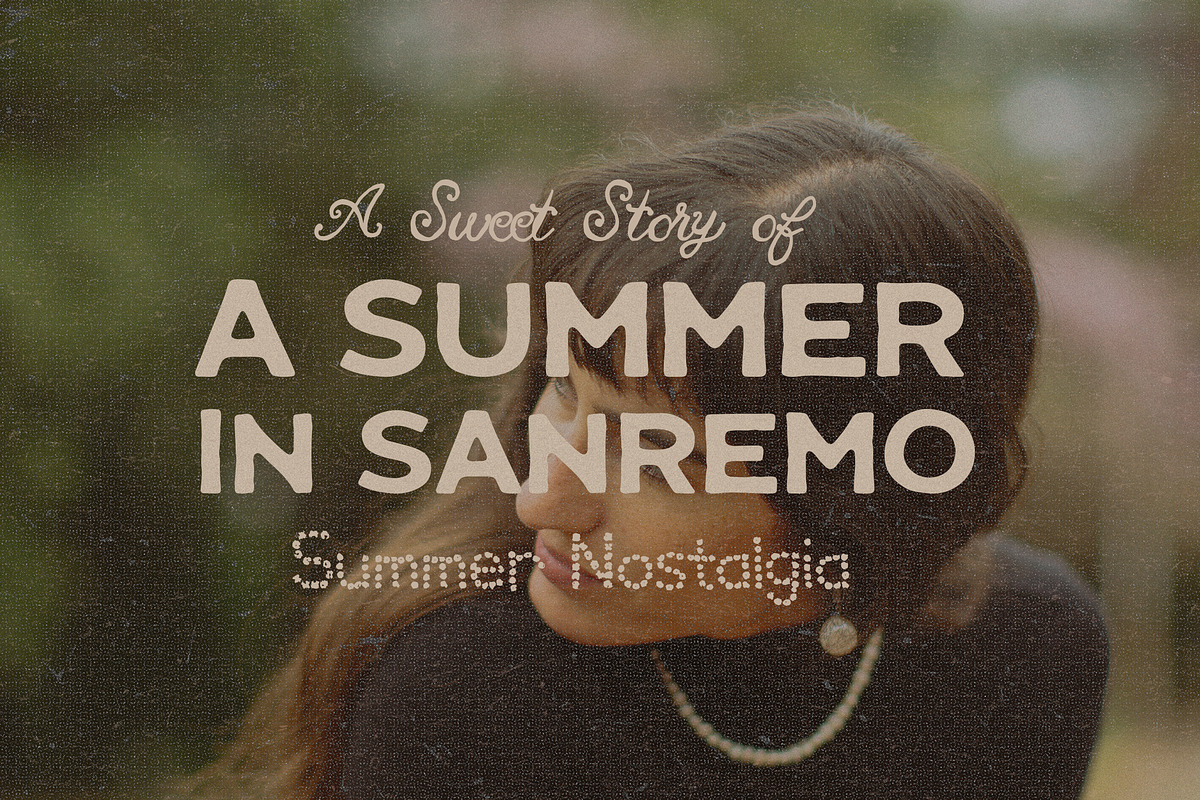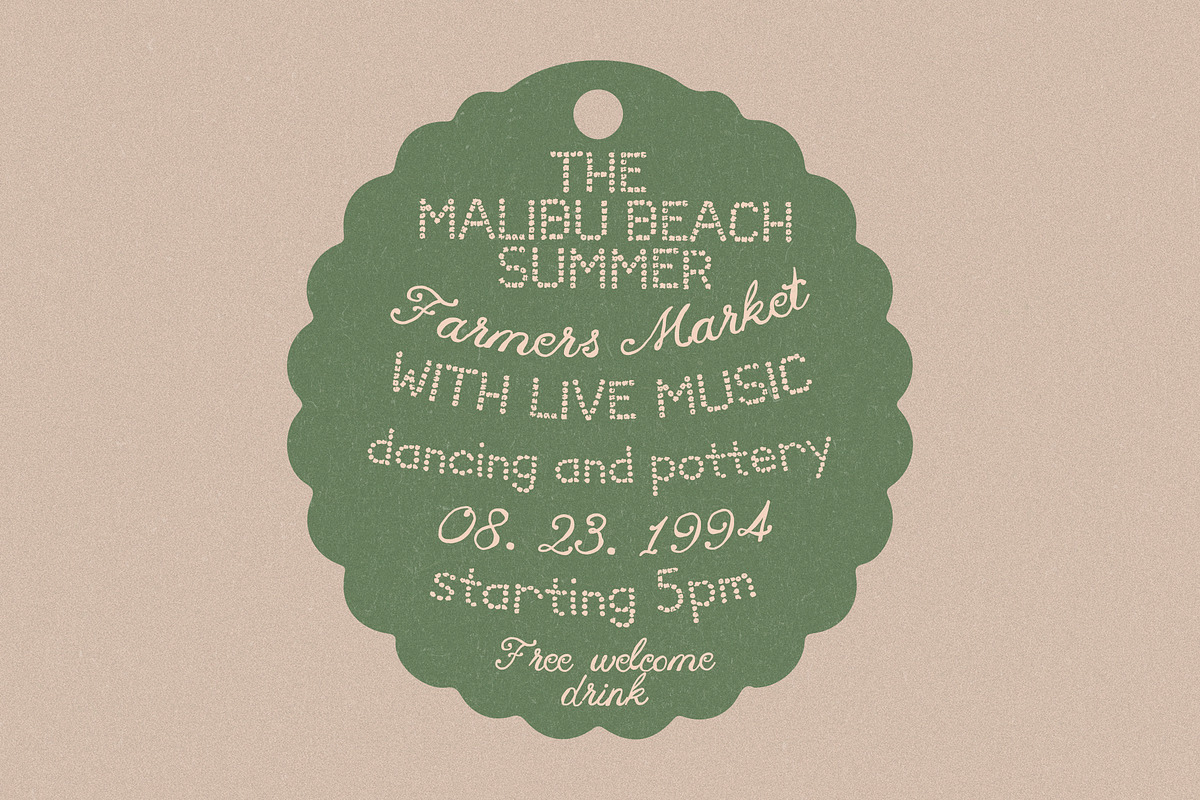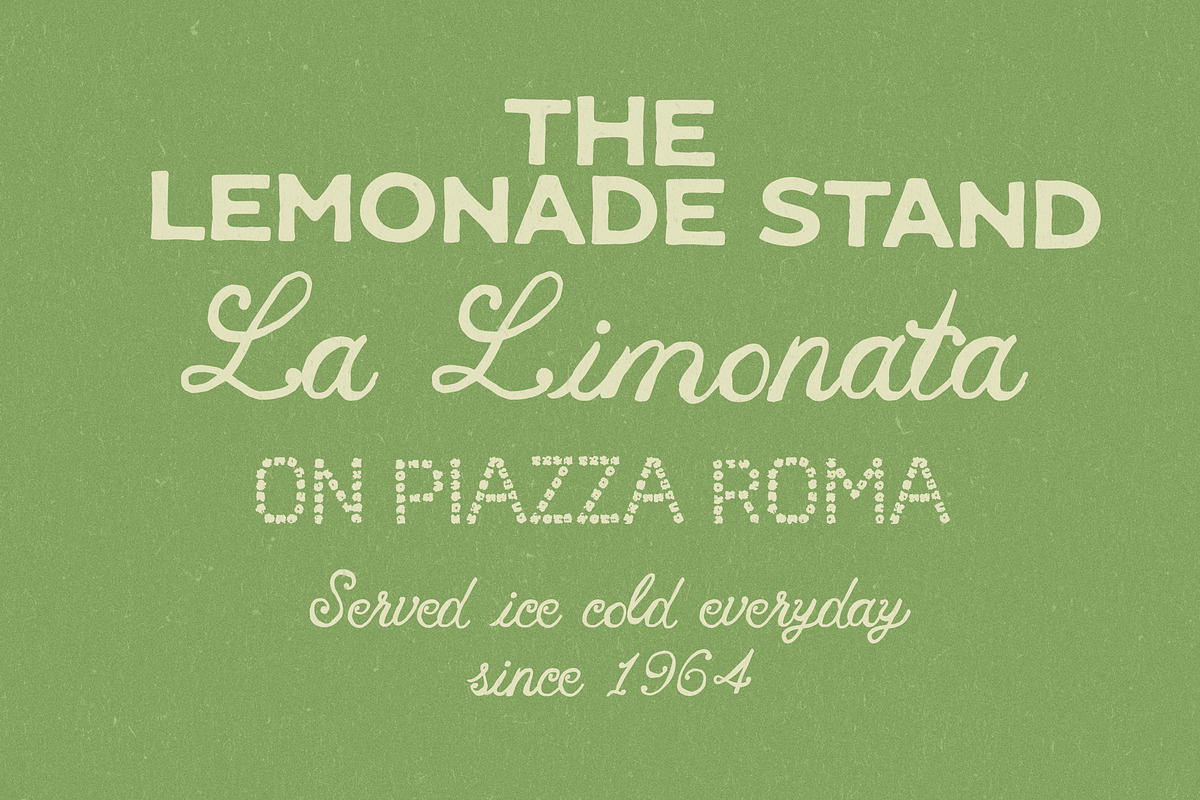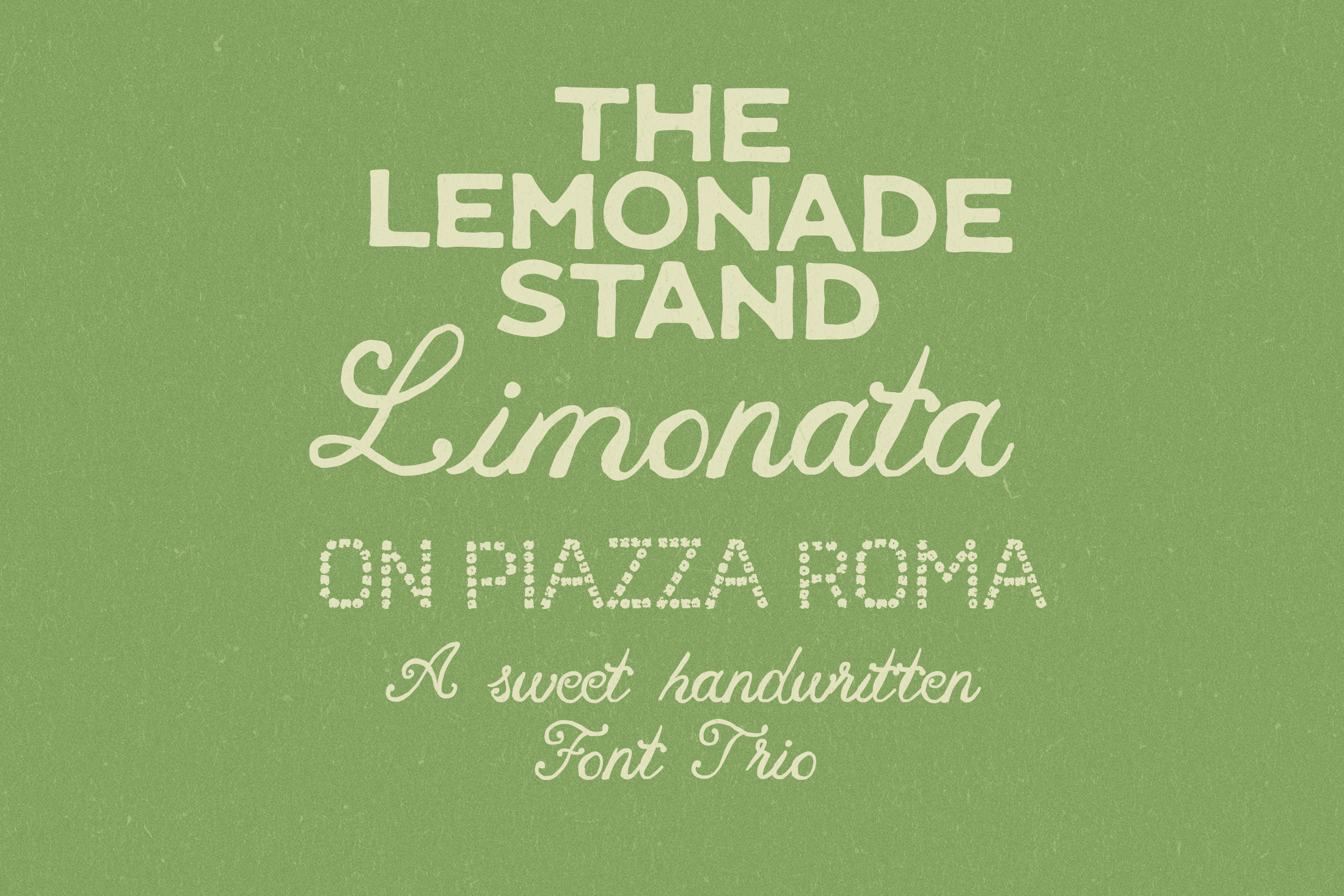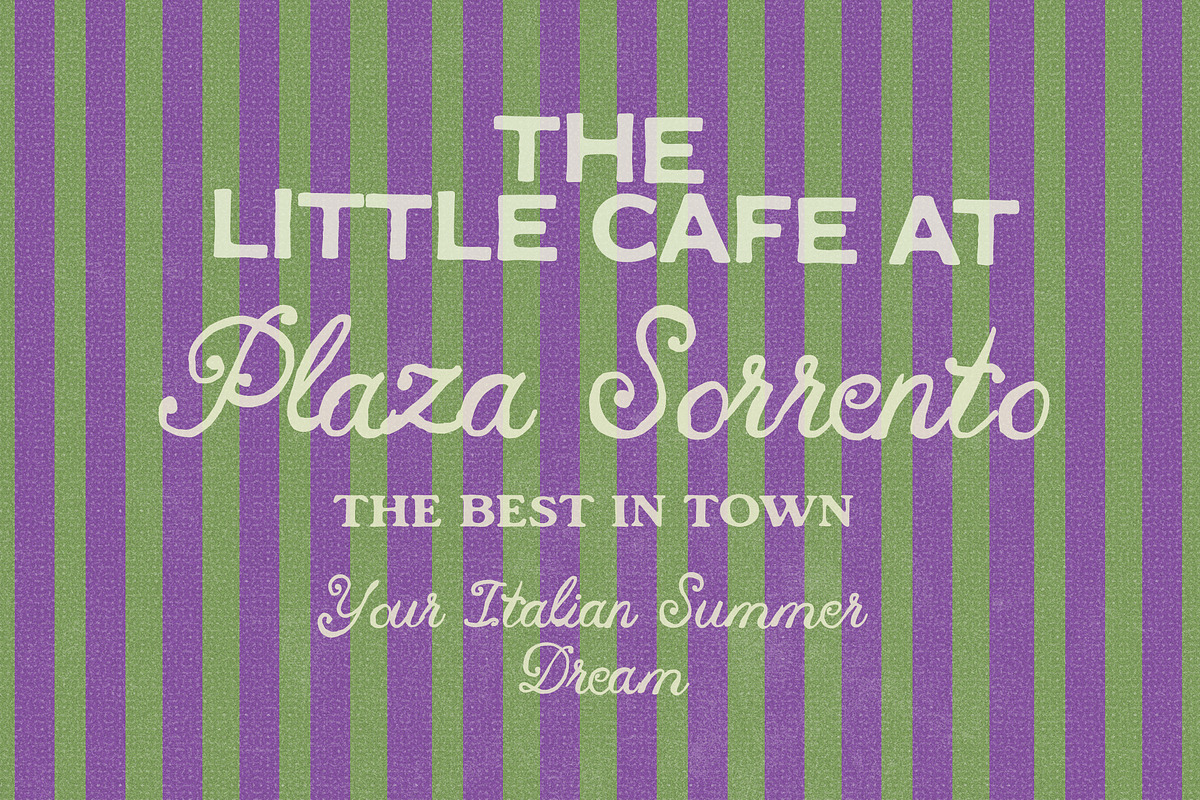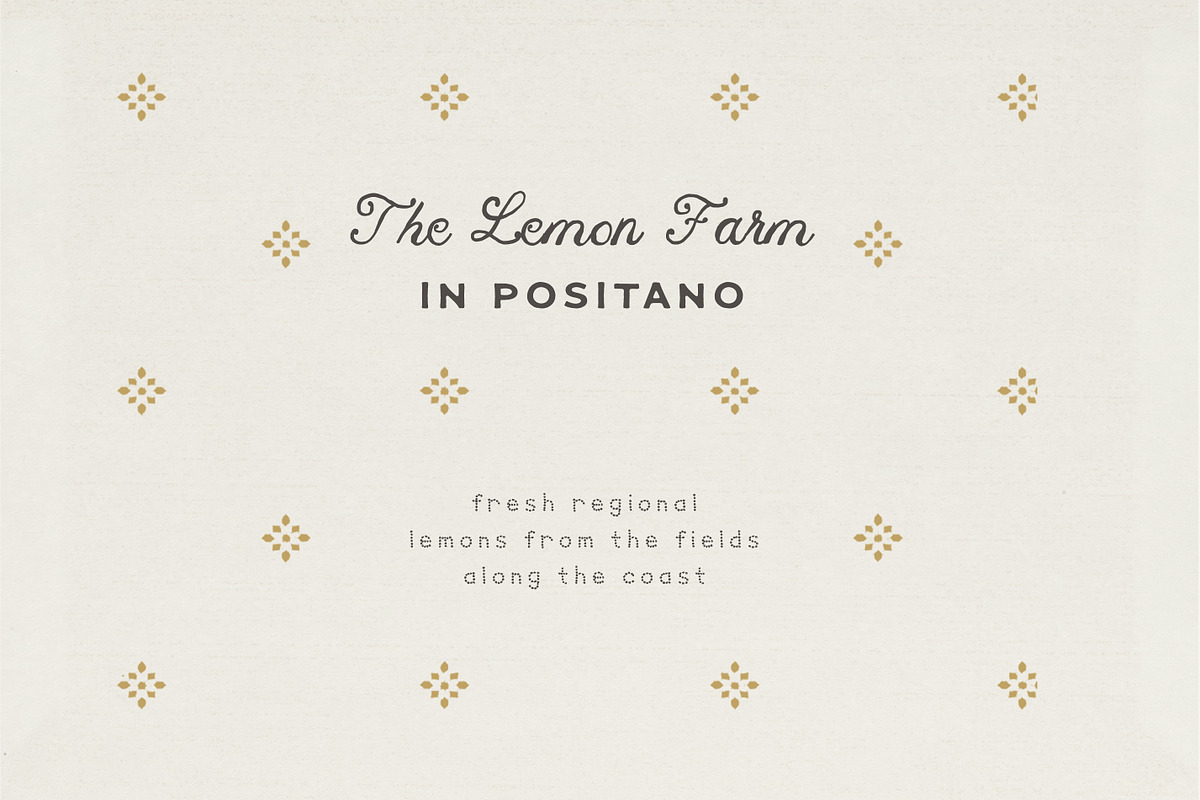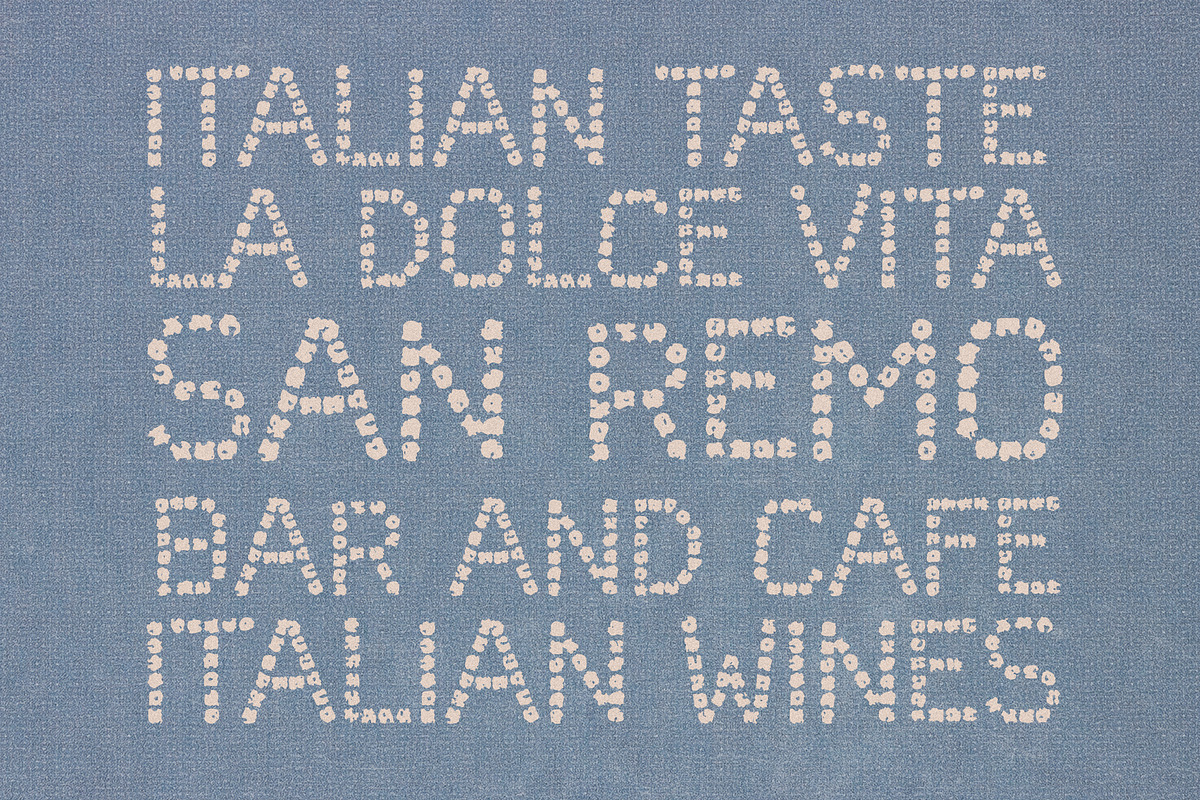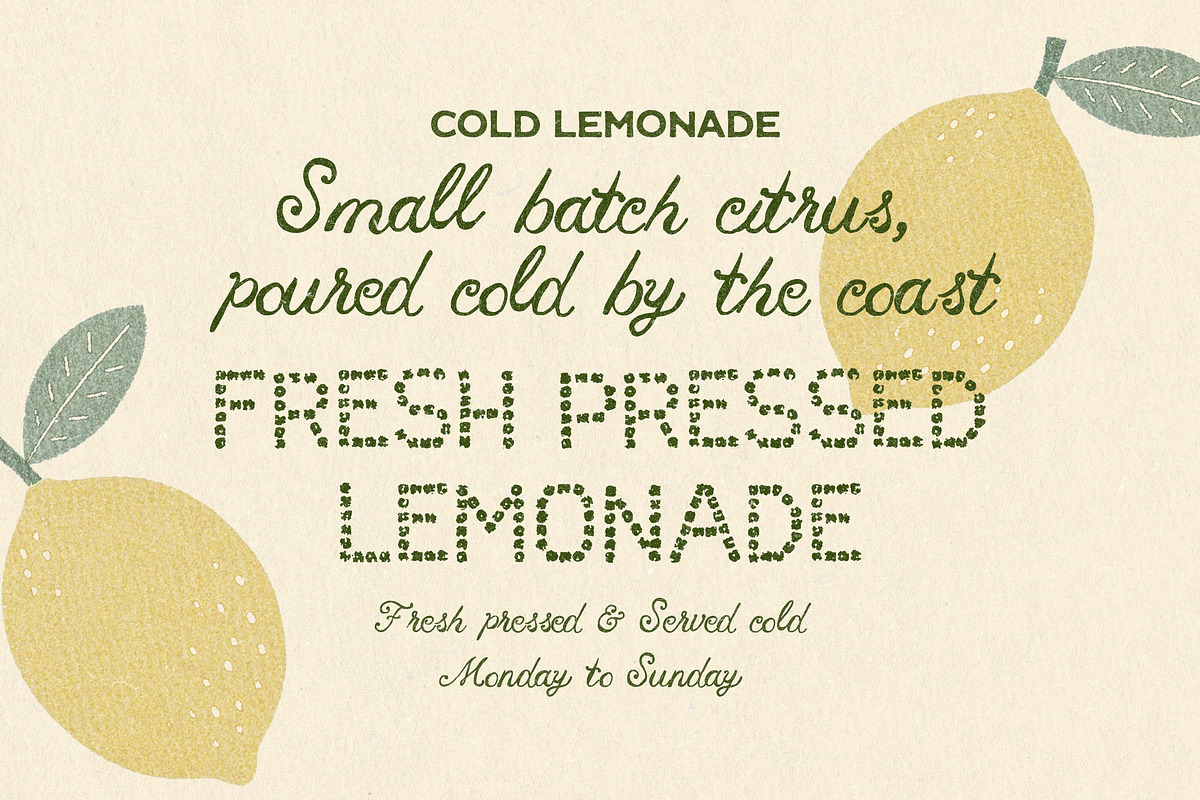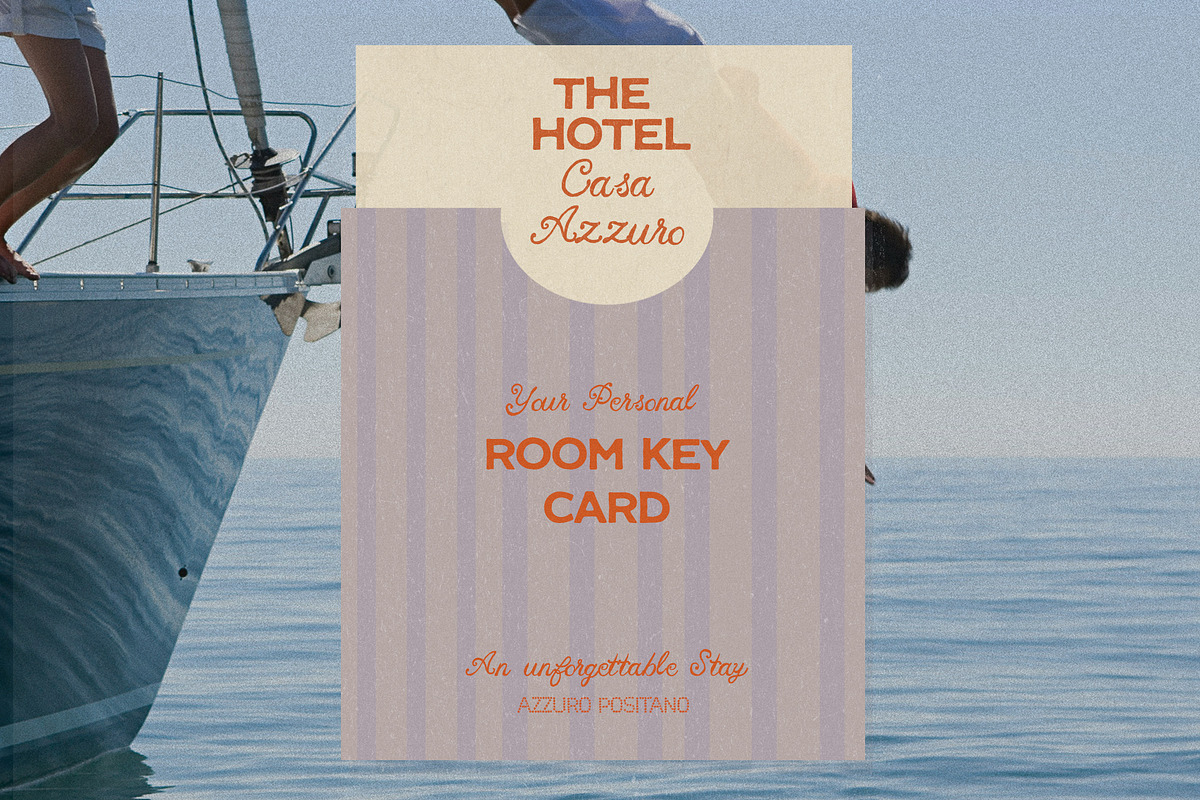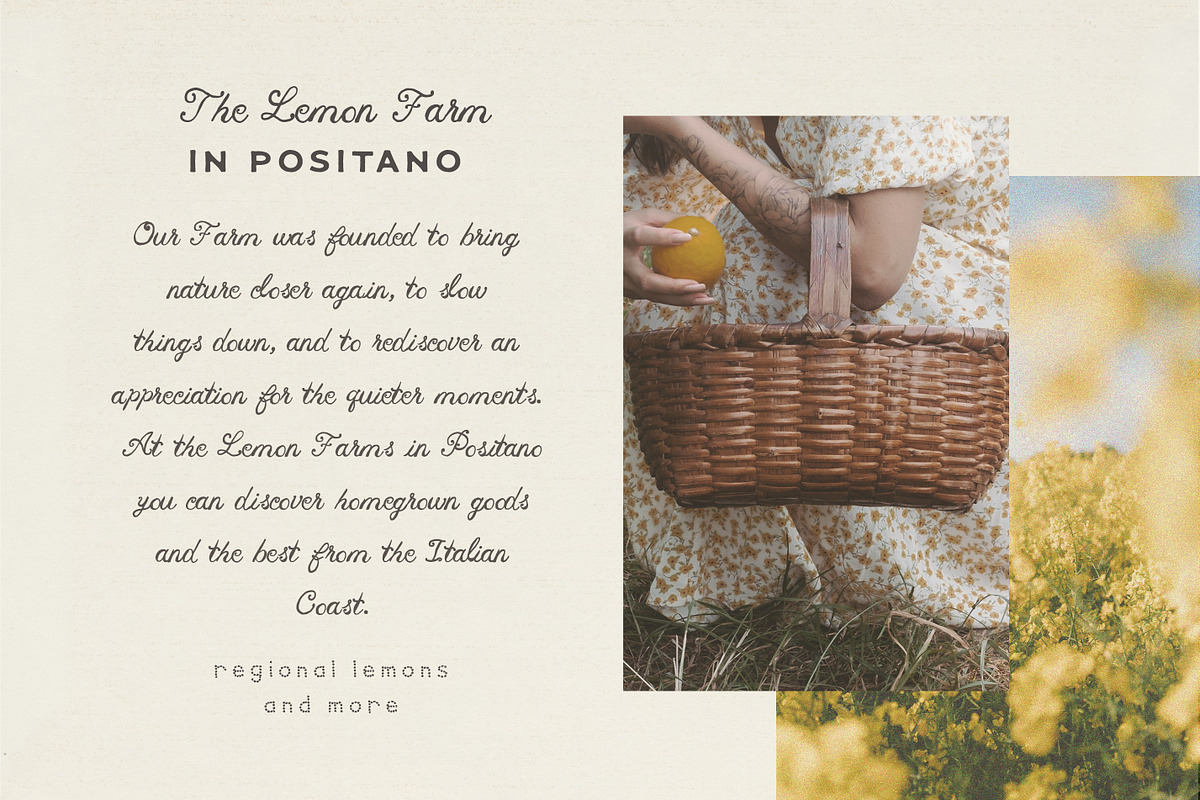
Handwritten Sign Painter Font Trio
Welcome the Lemonade Stand Font Trio!
A fresh and sunny font trio with a vintage Italian charm, made for designs that want to feel nostalgic, playful, and a little bit like they were found on an old sign outside a lemonade stand on the beach.
Lemonade Stand includes three beautifully matching font styles: a clean and simple sans, a sweet handwritten script, and a bold sign painter sans with a dotted, textured block style that looks like a real bleached-out vintage sign. Together, they bring that perfect mix of retro charm, warm-weather ease, and handmade personality!
Think lemon gelato, striped umbrellas, sun-faded shop signs, old postcards, tiny market stalls, and long afternoons somewhere by the coast - literally all the good stuff!